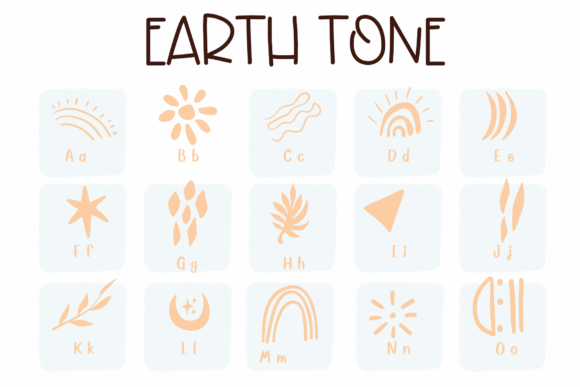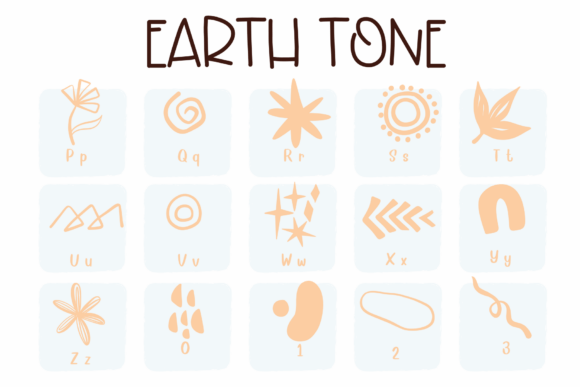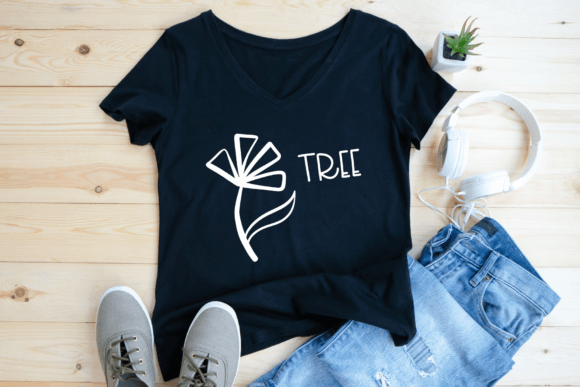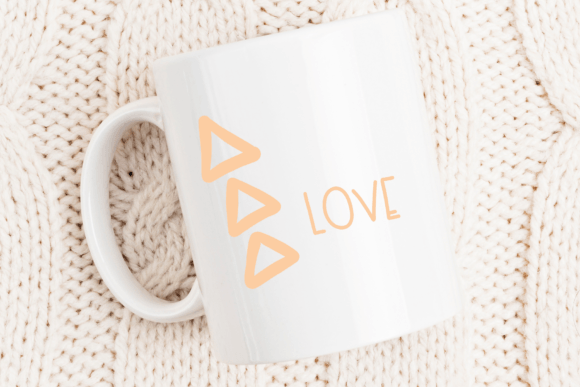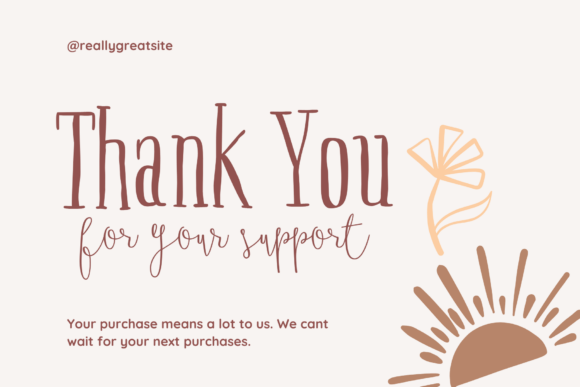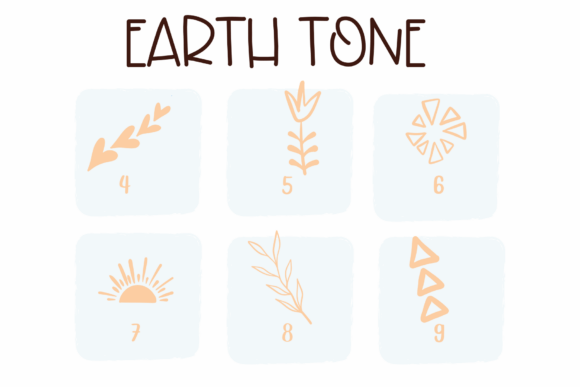
Earth Tone Font: Elevate Your Creative Projects with a Natural, Sketchy Style
Are you a designer, crafter, or DIY enthusiast looking for a unique font to add a personal touch to your creative projects? Look no further than the Earth Tone Font, a charming dingbats font that brings a sketchy, organic feel to your designs. In this article, we’ll explore the features and benefits of the Earth Tone Font, and show you how it can enhance your wedding invitations, DIY projects, crafts, decorations, logos, and more.
What is Earth Tone Font?
Earth Tone Font is a dingbats font that features a delightful sketch style, reminiscent of hand-drawn illustrations. The font is designed to evoke a sense of natural, earthy charm, making it perfect for projects that require a personal, whimsical touch. With its unique blend of simplicity and elegance, the Earth Tone Font is sure to add a distinctive flair to your designs.
Key Features of Earth Tone Font
- Sketchy style: The Earth Tone Font boasts a charming, hand-drawn look that adds a touch of warmth and personality to your designs.
- Dingbats font: The font features a range of dingbats and icons, making it perfect for adding decorative elements to your projects.
- Earth tone theme: The font’s earthy color palette and natural theme make it ideal for designs that require a organic, outdoorsy feel.
- Versatile: The Earth Tone Font can be used for a wide range of creative projects, from wedding invitations to DIY crafts, decorations, logos, and more.
Using Earth Tone Font in Your Creative Projects
The Earth Tone Font is incredibly versatile, and can be used in a variety of creative projects. Here are some ideas to get you started:
Wedding Invitations
Add a personal touch to your wedding invitations with the Earth Tone Font. The font’s sketchy style and earthy theme make it perfect for rustic, outdoor weddings, or for couples who want to add a whimsical touch to their invitations.
DIY Crafts
The Earth Tone Font is a great addition to any DIY craft project. Use it to add decorative elements to your handmade cards, gift tags, and other paper crafts.
Decorations
Use the Earth Tone Font to create beautiful decorations for your home or event. The font’s earthy theme makes it perfect for creating natural, outdoorsy decorations, such as burlap banners, wooden signs, and more.
Logos and Branding
The Earth Tone Font can also be used to create unique logos and branding elements. The font’s sketchy style and earthy theme make it perfect for businesses that want to convey a natural, organic image.
Tips for Using Earth Tone Font
Here are some tips for getting the most out of the Earth Tone Font:
- Experiment with different colors: The Earth Tone Font looks great in a range of earthy colors, from sandy neutrals to rich browns and greens.
- Mix and match with other fonts: The Earth Tone Font pairs well with a range of other fonts, from serif and sans serif fonts to script fonts.
- Use it sparingly: The Earth Tone Font is best used sparingly, as a decorative element to add visual interest to your designs.
The Earth Tone Font is a unique and versatile dingbats font that can add a natural, sketchy style to your creative projects. With its earthy theme and charming sketch style, this font is perfect for designers, crafters, and DIY enthusiasts who want to add a personal touch to their designs. Whether you’re creating wedding invitations, DIY crafts, decorations, logos, or more, the Earth Tone Font is sure to elevate your projects and help you stand out from the crowd.